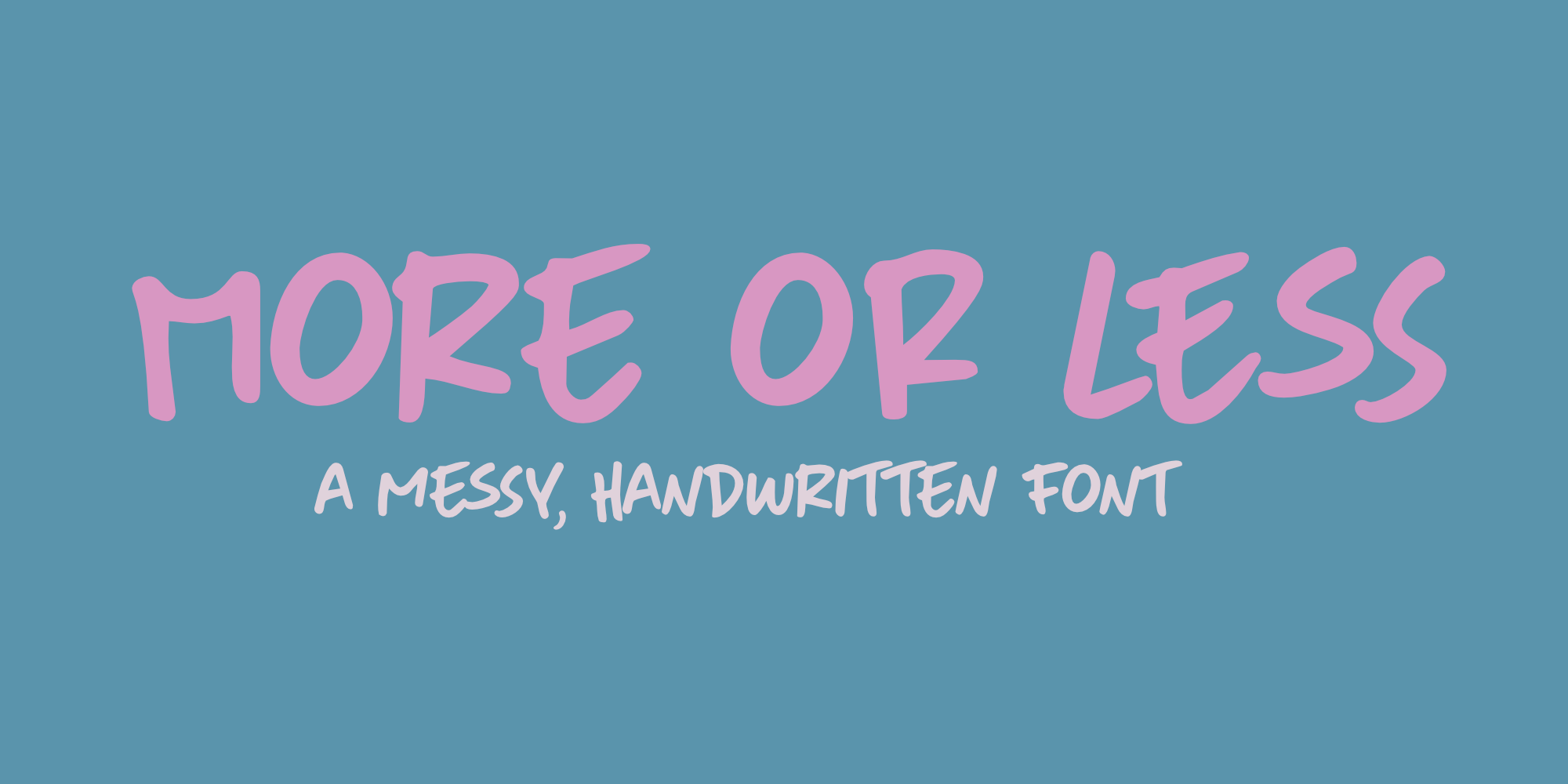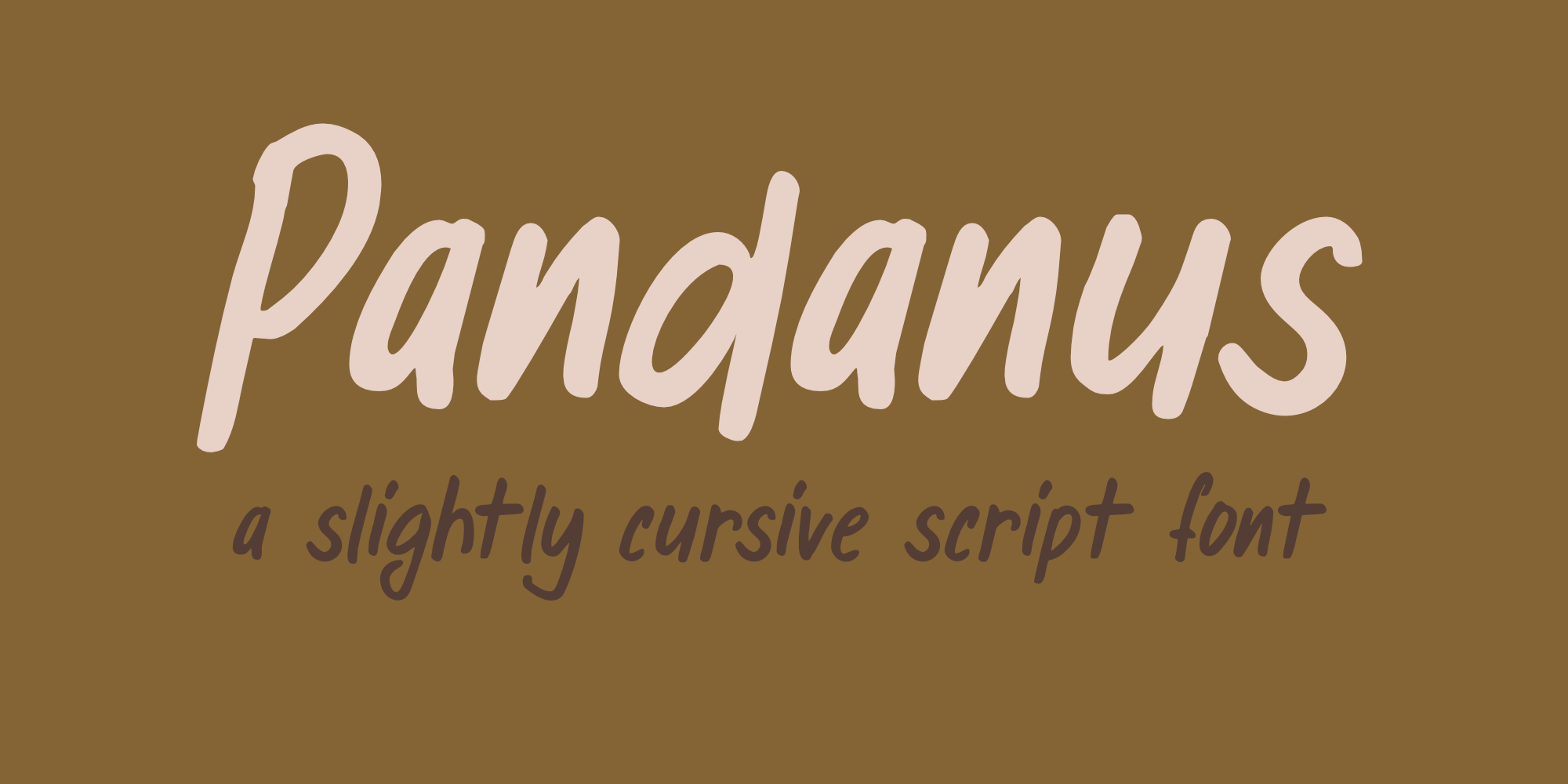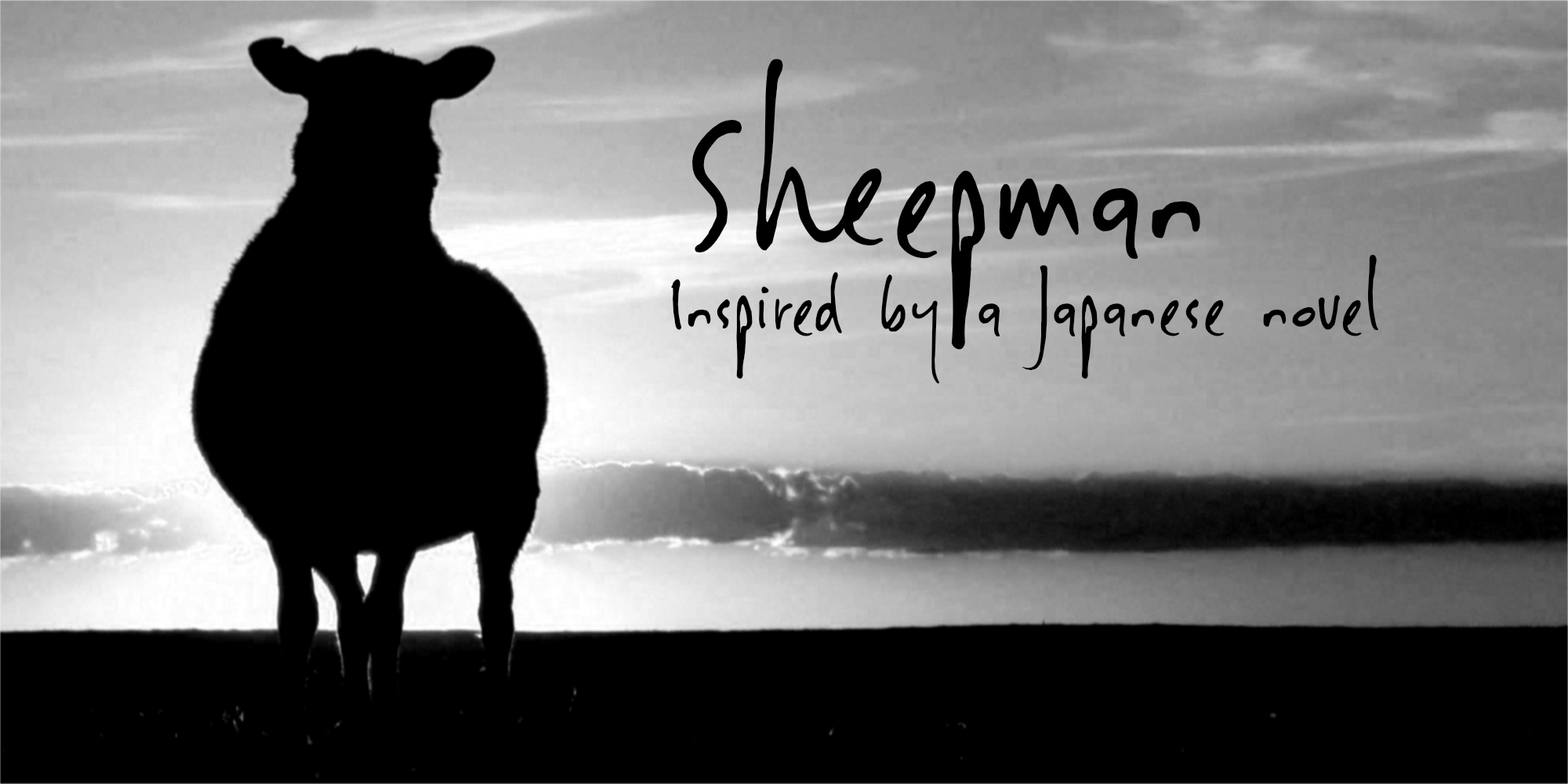
Same Same But Different
I have travelled a lot in India and Nepal. One thing I really liked about these countries is the easygoing way of life and the ability of the people to always see the bright side of things. Whenever I wanted to buy something and asked the salesperson whether it was the same quality of a more expensive item, the reply would always…
More Or Less
More Or Less was made with a permanent marker pen on thin Japanese paper. It is a handwritten note-style font with an uneven baseline and zippy glyphs. Comes with bells & whistles and a whole bunch of diacritics.
Pandanus
Pandanus is a lovely, handwritten typeface with a lot of flair. It is stylish, elegant and highly legible, making it an ideal font for texts and cards. Comes with a full range of diacritics and alternates for the lower case letters.
Keswick
Keswick is a beautiful small town in the English Lake District. It is a good place to hang out for a while and explore the surrounding National Park. During your stay you could visit the Keswick Pencil Factory – which brings us to this nice font… Keswick font was created using a 6B pencil (the crumbly, soft kind) and a lot of…
Sheepman
Sheepman font was named after my favorite Haruki Murakami character: the Sheep Man. Sheepman font is handwritten, messy, but legible and complete. It comes with alternates and ligatures.
Moi Non Plus
Moi Non Plus is a wonderful, handwritten font. It has a somewhat chaotic look, but is stylish nonetheless. The name was taken from a famous Serge Gainsbourg song called ‘Je t’aime – moi non plus’, which caused a bit of a scandal when it was released in the ’60’s, due to its overtly sexual content.
Nouveau Crayon
Nouveau Crayon is based on Crayon Crumble, a font I made a long time ago. I changed a lot of glyphs and added a whole bunch of new ones. It has become quite a good looking font to be honest: oodles of crayon goodness, heaps of crumbling bits and a lot of expression. Use it for cafe websites, restaurant menus, children’s books, art…
Lemon Yellow Sun
Lemon Yellow Sun is a line from my favorite Pearl Jam song – Jeremy. It also happens to be the title of a Stiltskin song, so I had to name a font after it. LYS is a tall, all caps typeface with lots of bouncy glyphs and lots of diacritics. Upper and lower case have been designed to mingle, so have a…